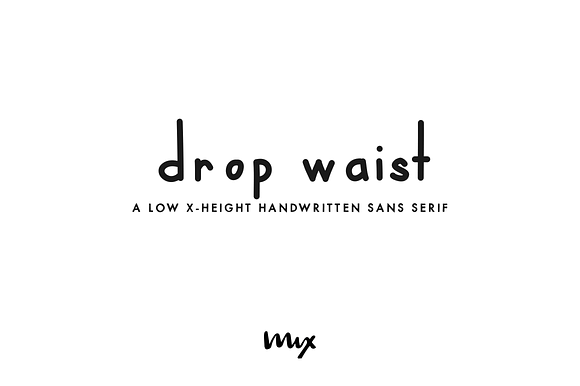
Drop Waist — A Handwritten Font
MIX DROP WAIST is a handwritten monoline sans serif with a noticeably low x-height. The drop waist makes for just enough quirk to add personality with typography.